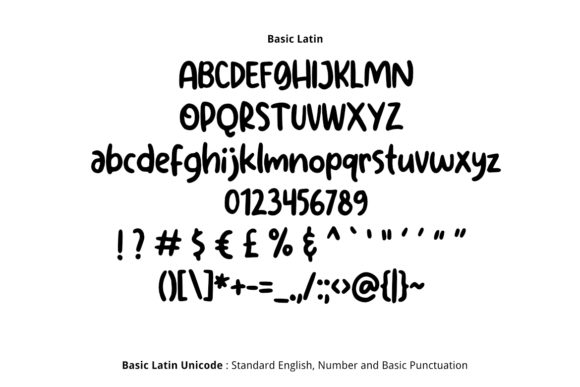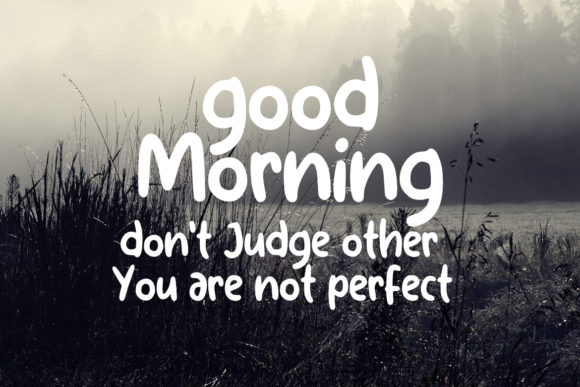
Introduction to Hakuro Font
Have you ever stumbled upon a quirky design that makes you stop and smile? For many designers, that moment is what fuels their creativity. For me, it was discovering the Hakuro Font – a delightful, hand-drawn display font that exudes a carefree spirit. Its unique blend of clean lines and playful charm makes it the perfect fit for any logo, branding, or social media project.
As a valuable design resource, the Hakuro Font is available for free download, allowing designers to access its high-quality features without any restrictions. Whether you’re working on a creative project or simply need a fresh touch for your next design, this font is sure to add a personal touch. With its transparent background and customizable options, the Hakuro Font is an excellent choice for designers seeking a distinctive and eye-catching element.
Key Features of Hakuro Font
- Unique and elegant design with a transparent background, allowing for versatility in design applications.
- Includes a range of weights and styles to cater to diverse design needs and preferences.
- Designed to be highly legible, making it an excellent choice for body text and titles in creative projects.
Honest Review: Hakuro Font
As a designer, I’m always on the lookout for high-quality design resources to elevate my creative projects. Recently, I stumbled upon the Hakuro Font, and I’m excited to share my honest review.
- ✨ High-quality typography with crisp, clean lines and a beautiful, elegant feel.
- ✨ Transparent background, making it easy to work with in various design scenarios.
- ⚠️ Limited character set, which may not be suitable for extensive text-based projects.
Overall, I’m impressed with the Hakuro Font. It’s perfect for designers looking to add a touch of elegance to their creative projects. While it has some limitations, the high-quality typography and free download make it a valuable design resource. I’d definitely recommend it to fellow designers.
When using Hakuro Font, it’s best to use a transparent background to ensure that the font stands out against any background image or color. You can also experiment with different font sizes and styles to create a unique and eye-catching design. Additionally, consider using Hakuro Font in conjunction with other design elements, such as images and graphics, to create a visually appealing and high-quality design.
The Hakuro Font is a versatile font that can be used in a variety of creative projects, including logos, business cards, and social media graphics. It’s also a great font to use for presentations and documents, as it’s easy to read and visually appealing. Whether you’re a professional designer or a hobbyist, Hakuro Font is a valuable resource that can help you create high-quality designs.
Yes, the Hakuro Font is designed to be used with a transparent background, making it perfect for creative projects that require a high level of design flexibility. You can easily combine it with other design elements to create a unique visual effect.
Is the Hakuro Font a high-quality design resource?
Yes, the Hakuro Font is a high-quality design resource that has been carefully crafted to provide a unique and elegant look for your creative projects. Its high-quality design makes it an excellent choice for designers who want to add a touch of sophistication to their work.